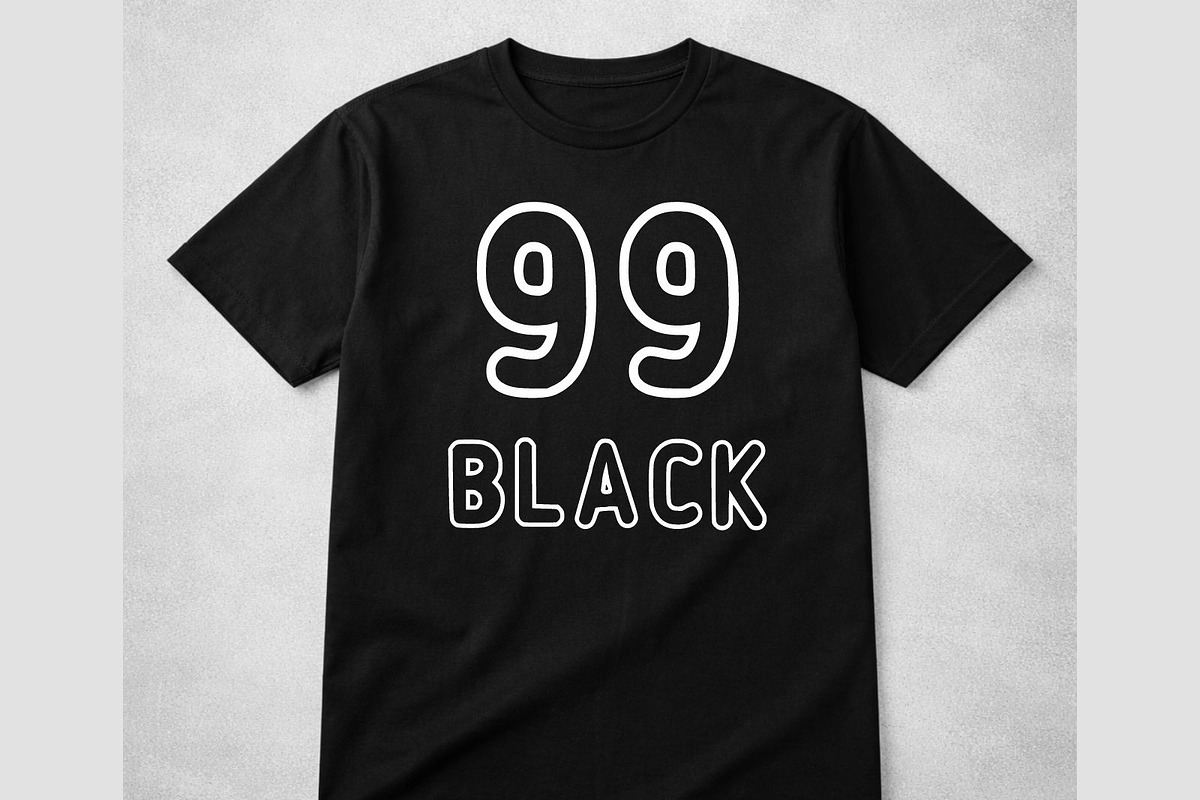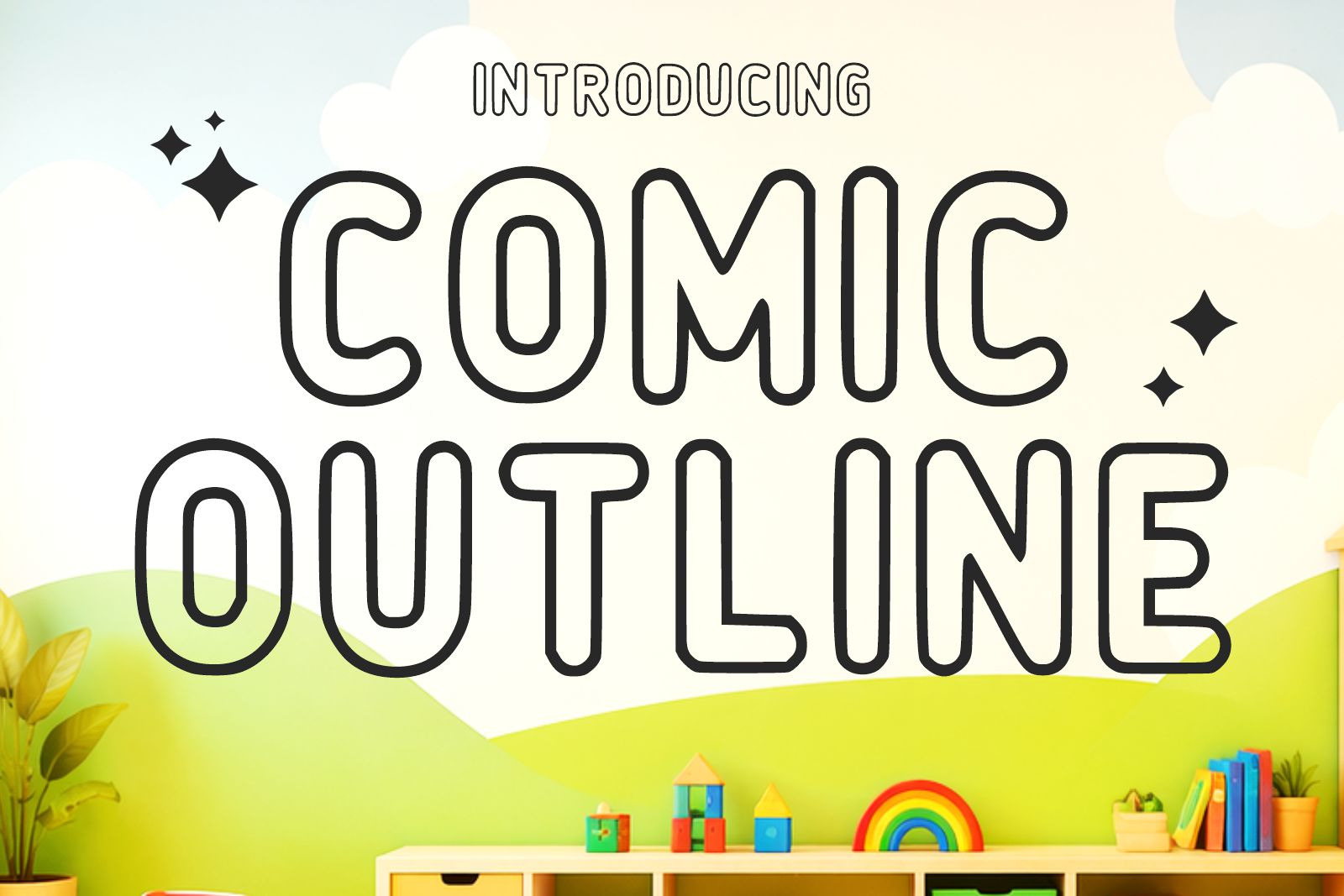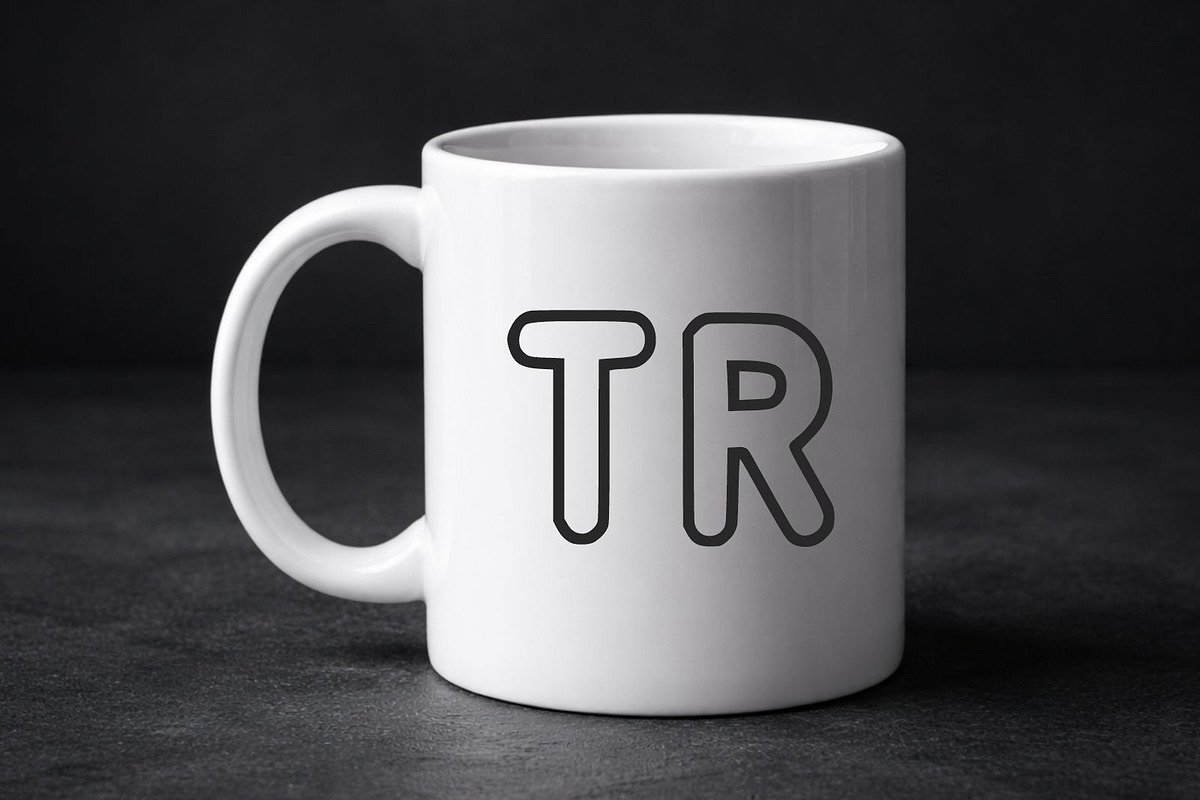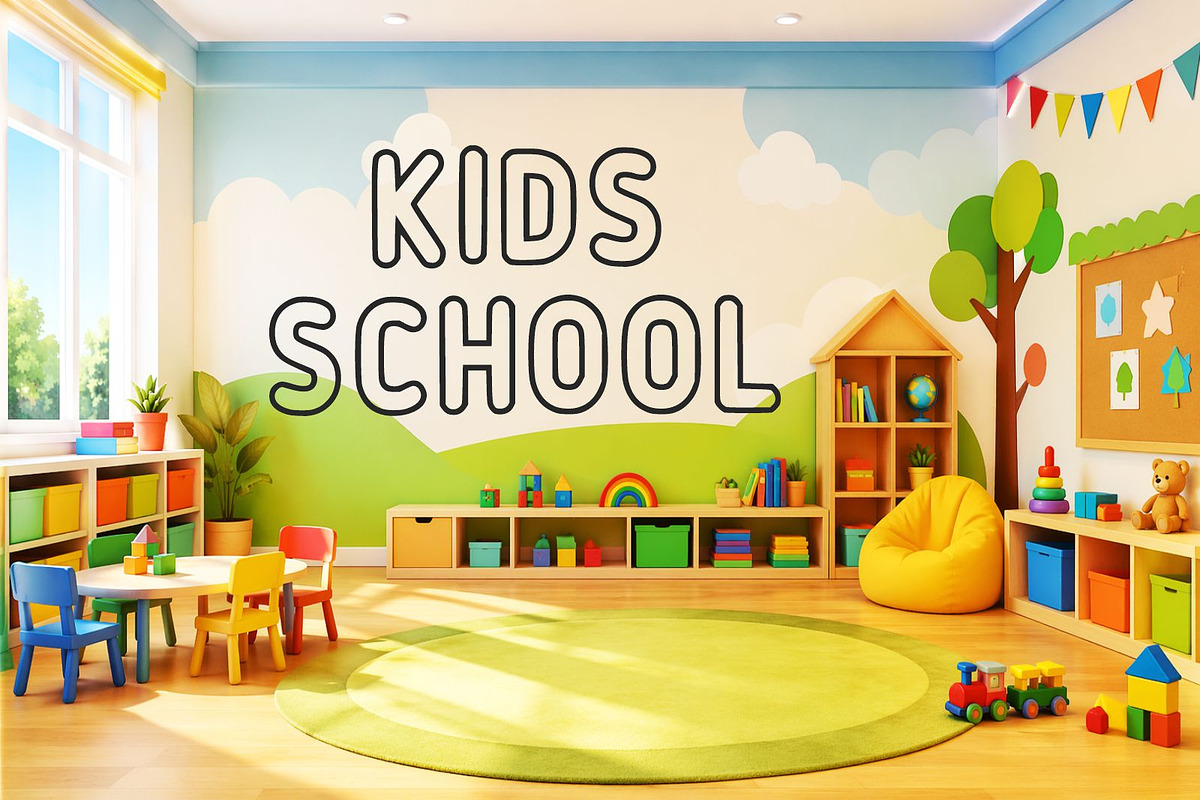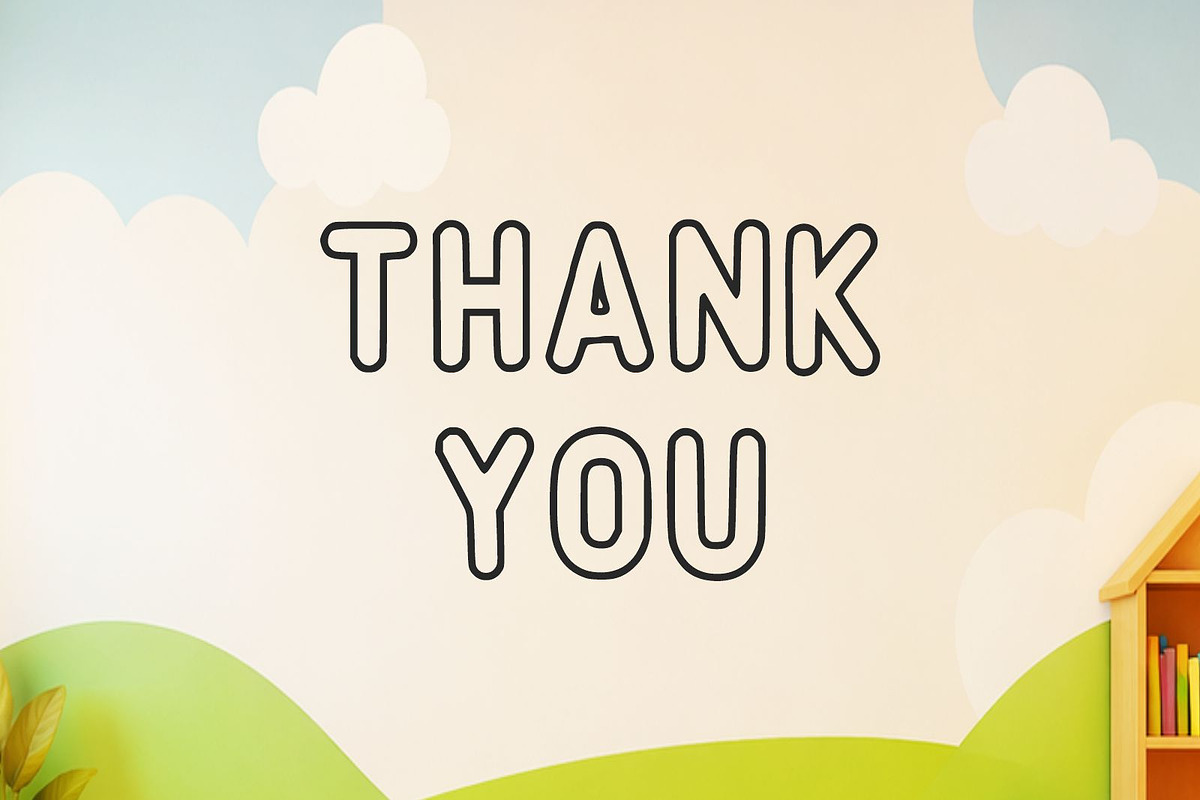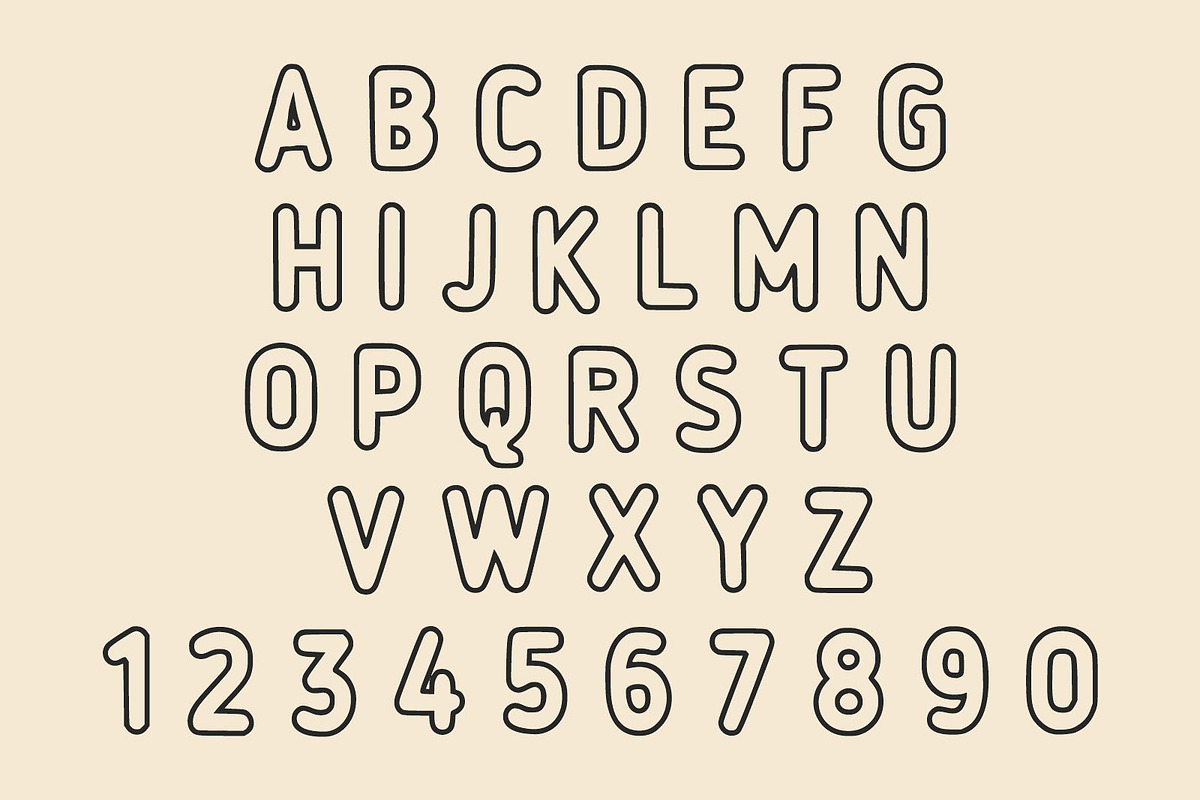
Comic Outline – Kids Outline Font
Comic Outline is a fun and friendly outline display font designed especially for children's projects, educational materials, and playful branding. Featuring clean rounded letterforms with a modern outline style, this font creates a cheerful and eye-catching look while remaining easy to read.
Perfect for teachers, designers, crafters, and small businesses, Comic Outline is ideal for classroom decorations, worksheets, coloring books, birthday invitations, nursery décor, stickers, toy packaging, T-shirt designs, and creative Cricut projects. Its versatile outline style also works beautifully for coloring activities, allowing children to personalize letters with their favorite colors.
Whether you're creating digital or printable products, Comic Outline brings a bright, playful, and professional touch to every design.